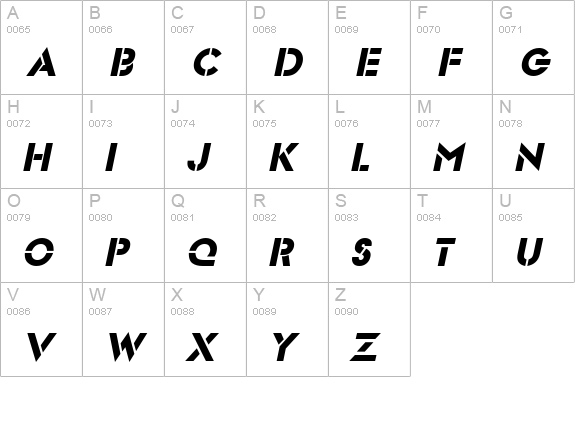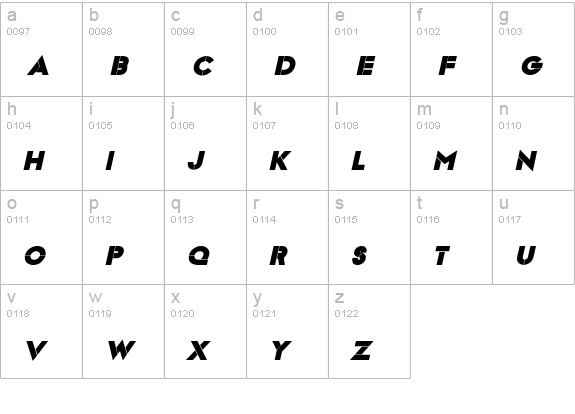
Templett BoldItalic font is a visually striking typeface that effortlessly combines boldness and elegance. Its distinctively slanted and thick letterforms exude confidence and add a touch of sophistication to any design project. This font is perfect for those looking to make a bold statement while keeping a touch of finesse. What sets Templett BoldItalic font apart is not only its stunning aesthetics but also its accessibility. This font is available for free download at FontsMarket.com, making it easily accessible to designers, artists, and creatives alike. Whether you're working on a personal project or a professional assignment, Templett BoldItalic font is an invaluable resource that can elevate your work to new heights. The versatility of Templett BoldItalic font is evident in its ability to seamlessly adapt to various design contexts. From eye-catching headlines to attention-grabbing logos, this font can effortlessly handle any typographic task with its bold and italicized characters. Its strong presence on the page demands attention and ensures that your message is conveyed with clarity and impact. With Templett BoldItalic font, you have the freedom to experiment and unleash your creativity. Its unique styling offers endless possibilities to explore and create visually compelling designs. Whether you're designing a poster, a website, or even a branding project, this font will undoubtedly leave a lasting impression on your audience. In conclusion, Templett BoldItalic font is a free and readily available typeface that effortlessly combines boldness and elegance. Its striking appearance and versatility make it a valuable asset for designers of all kinds. Download Templett BoldItalic font today from FontsMarket.com and experience the power of this remarkable typeface for yourself.